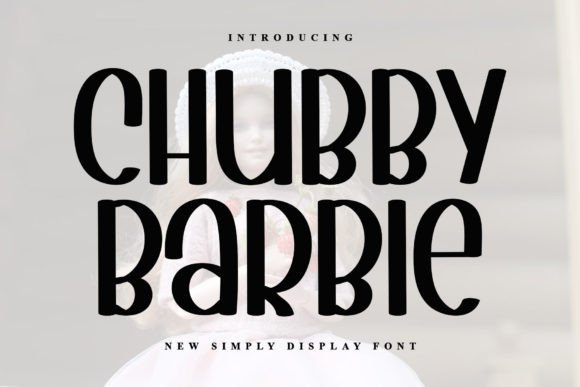
Introducing Chubby Barbie Font: The Playful and Whimsical Display Font
In the world of typography, fonts play a crucial role in conveying the tone and personality of a brand or design. With the numerous font options available, it can be challenging to find the perfect one that captures the essence of your project. However, if you’re looking for a font that exudes playfulness, charm, and whimsy, look no further than the Chubby Barbie Font. In this article, we’ll delve into the features and benefits of this delightful font and explore how it can elevate your designs.
What is Chubby Barbie Font?
Chubby Barbie is a fun and cute display font that is designed to radiate playful charm and whimsy. As the name suggests, this font features chubby letterforms that give it a distinctive and quirky personality. With its rounded edges and soft curves, Chubby Barbie is perfect for lighthearted designs, children’s books, and adorable branding projects.
Benefits of Using Chubby Barbie Font
So, what makes Chubby Barbie Font an excellent choice for your designs? Here are some benefits of using this delightful font:
- Playful and Whimsical: Chubby Barbie Font is designed to add a touch of playfulness and whimsy to your designs. Its quirky personality makes it perfect for projects that require a lighthearted and fun approach.
- Perfect for Children’s Books: The font’s chubby letterforms and soft curves make it an excellent choice for children’s books, comics, and other kid-friendly content.
- Adorable Branding Projects: Chubby Barbie Font is ideal for branding projects that require a cute and charming personality. It can help you create a memorable and engaging brand identity.
- Easy to Read: Despite its playful design, Chubby Barbie Font is easy to read, making it perfect for body text and headings.
Design Tips for Using Chubby Barbie Font
To get the most out of Chubby Barbie Font, here are some design tips to keep in mind:
- Pair with Other Fonts: Chubby Barbie Font can be paired with other fonts to create a unique and visually appealing design. Try pairing it with a sans-serif font for a contrasting look.
- Use for Headings and Titles: Chubby Barbie Font is perfect for headings and titles. Use it to add a touch of playfulness and whimsy to your design.
- Experiment with Colors: Chubby Barbie Font looks great in bright and bold colors. Experiment with different colors to find the perfect combination for your design.
What Designers Say About Chubby Barbie Font
In conclusion, Chubby Barbie Font is a fun and cute display font that is perfect for lighthearted designs, children’s books, and adorable branding projects. With its chubby letterforms and quirky personality, it’s sure to add a sprinkle of joy and laughter to your creations. So why wait? Download Chubby Barbie Font today and take your designs to the next level!